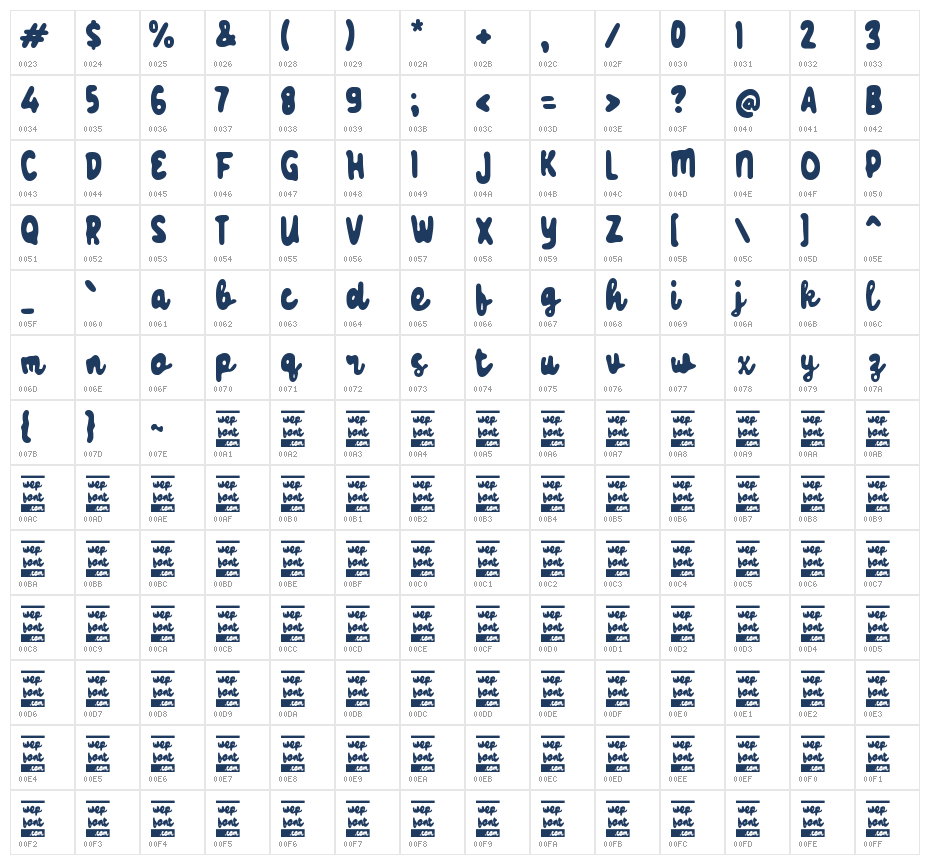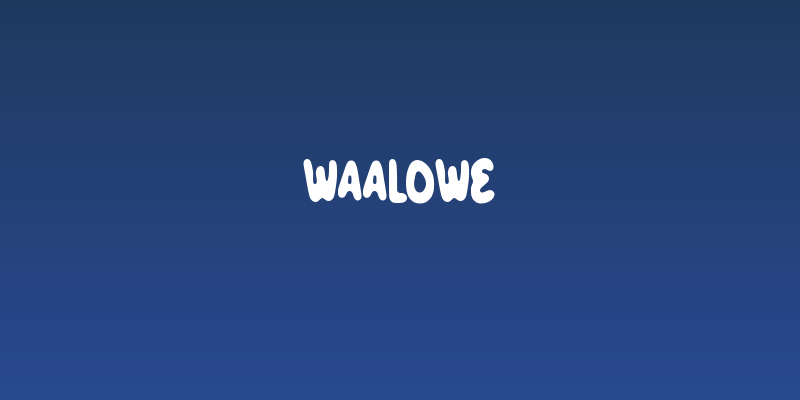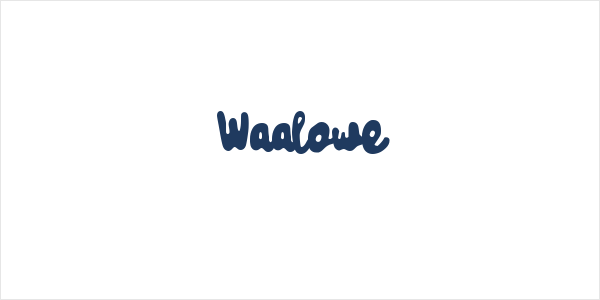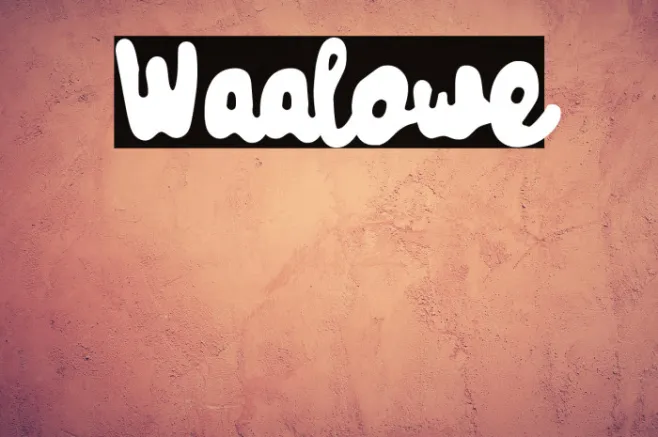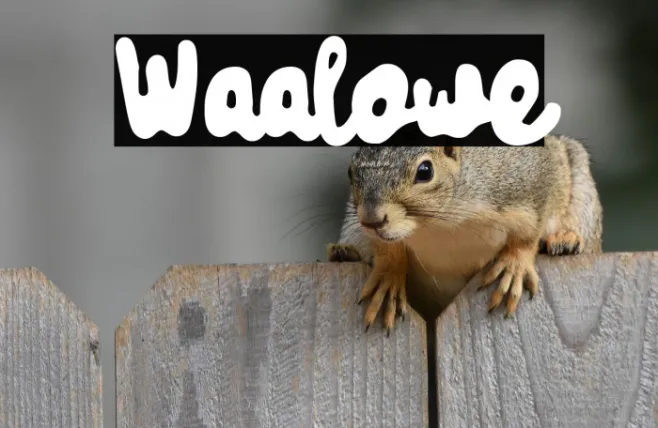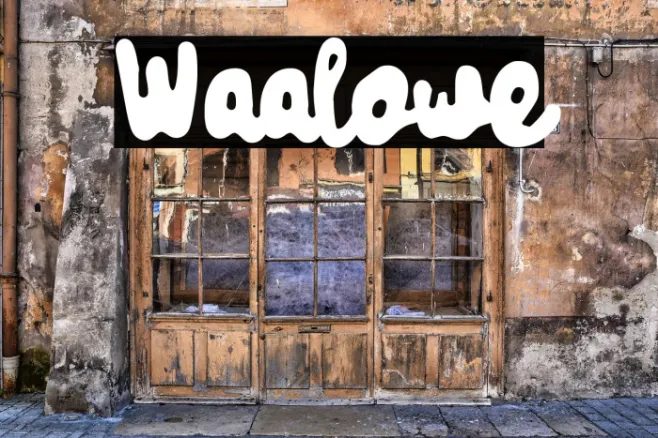
Waalowe Font
Waalowe Description
A playful, rounded, and bold handwritten style font with a casual and friendly appearance.
| Overall Style | Casual, Playful, Friendly |
| Use Case | Headlines, Logos, Children's materials, Informal branding |